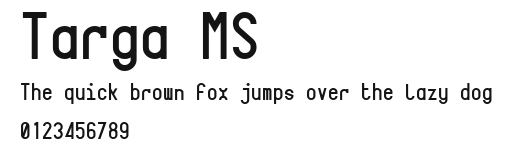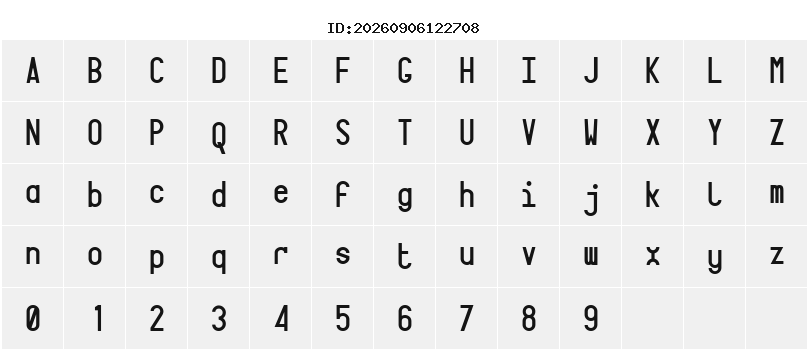
Targa MS Preview
• Font Name: Targa MS
• Full Font Name: Targa MS
• Designer: Cosimo Lorenzo Pancini
• Manufacturer: studio kmzero
About Targa MS.ttf
Targa MS.ttf is a modern, elegant sans-serif font designed for ultimate readability and visual harmony. Perfect for branding, headlines, web design, and print materials.